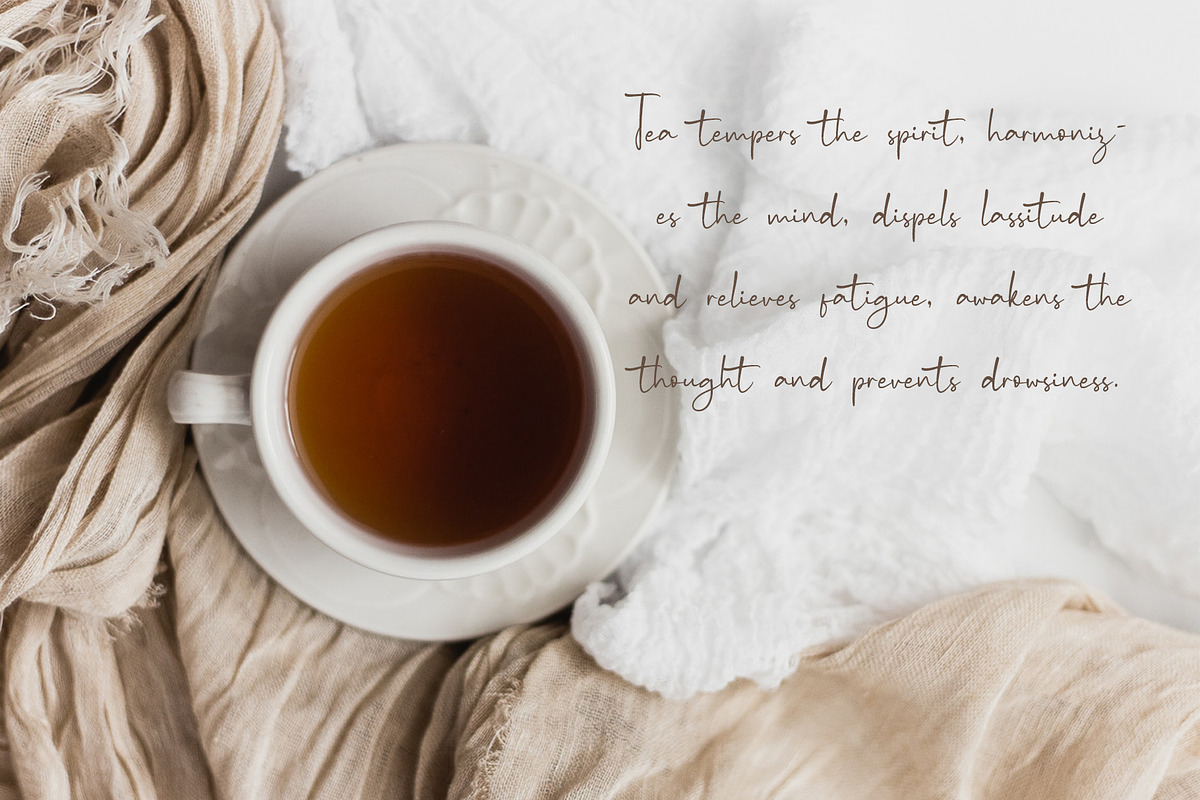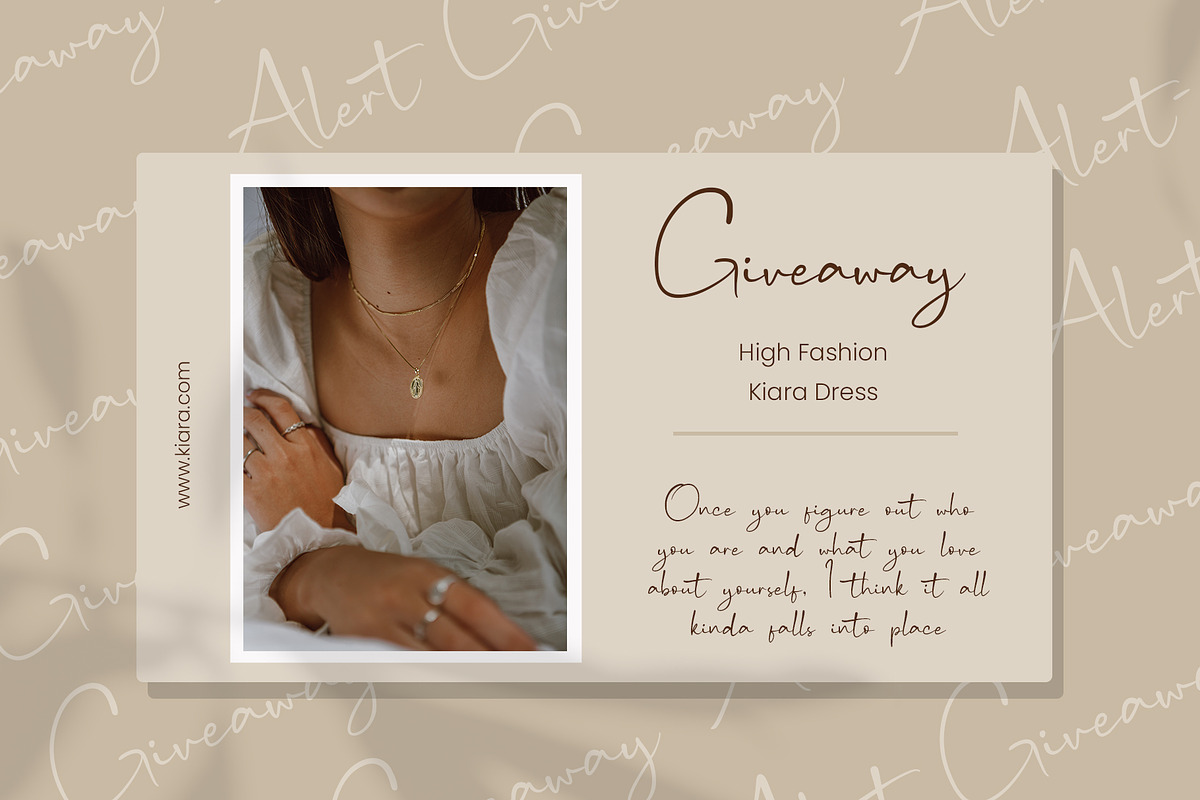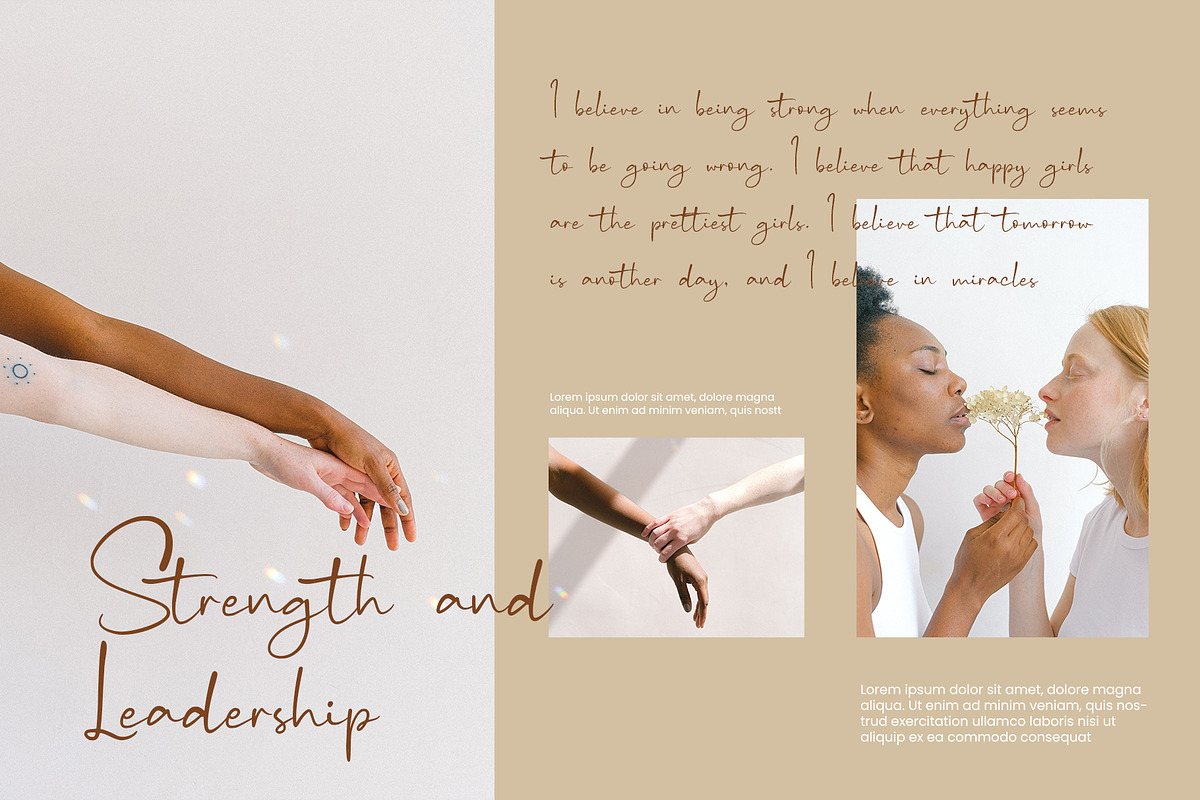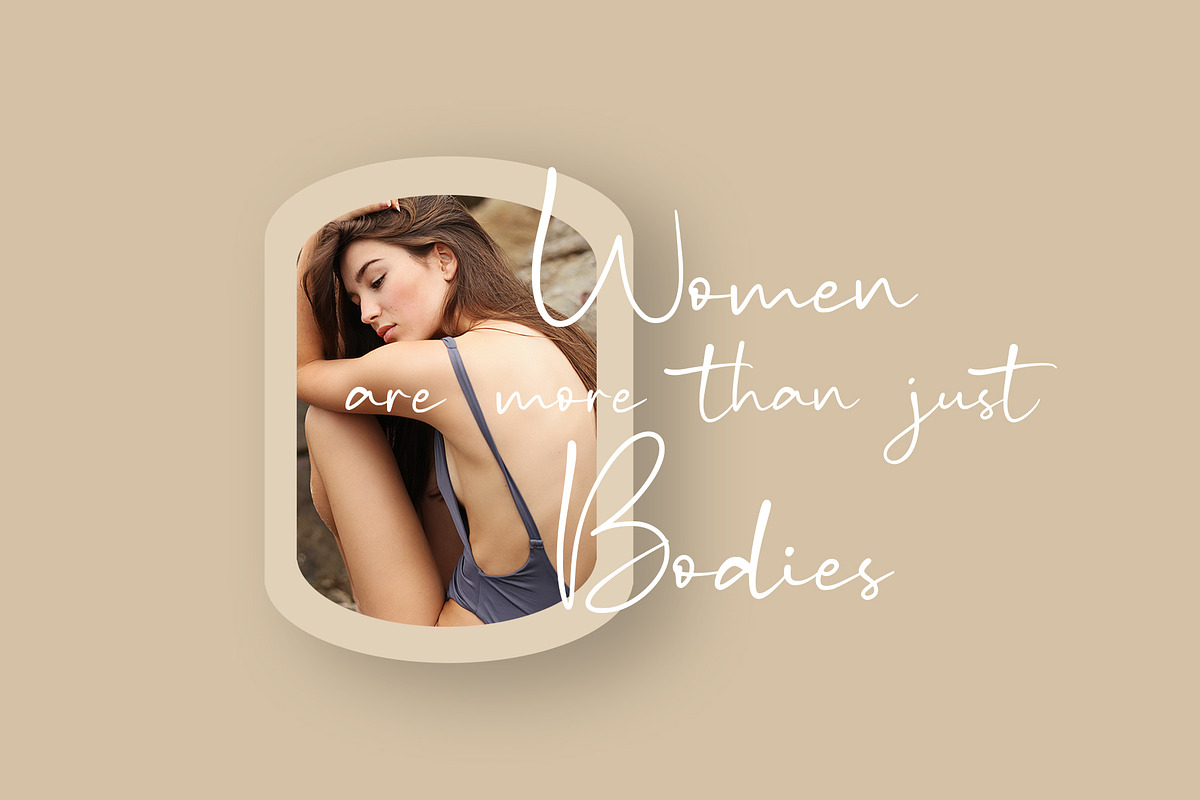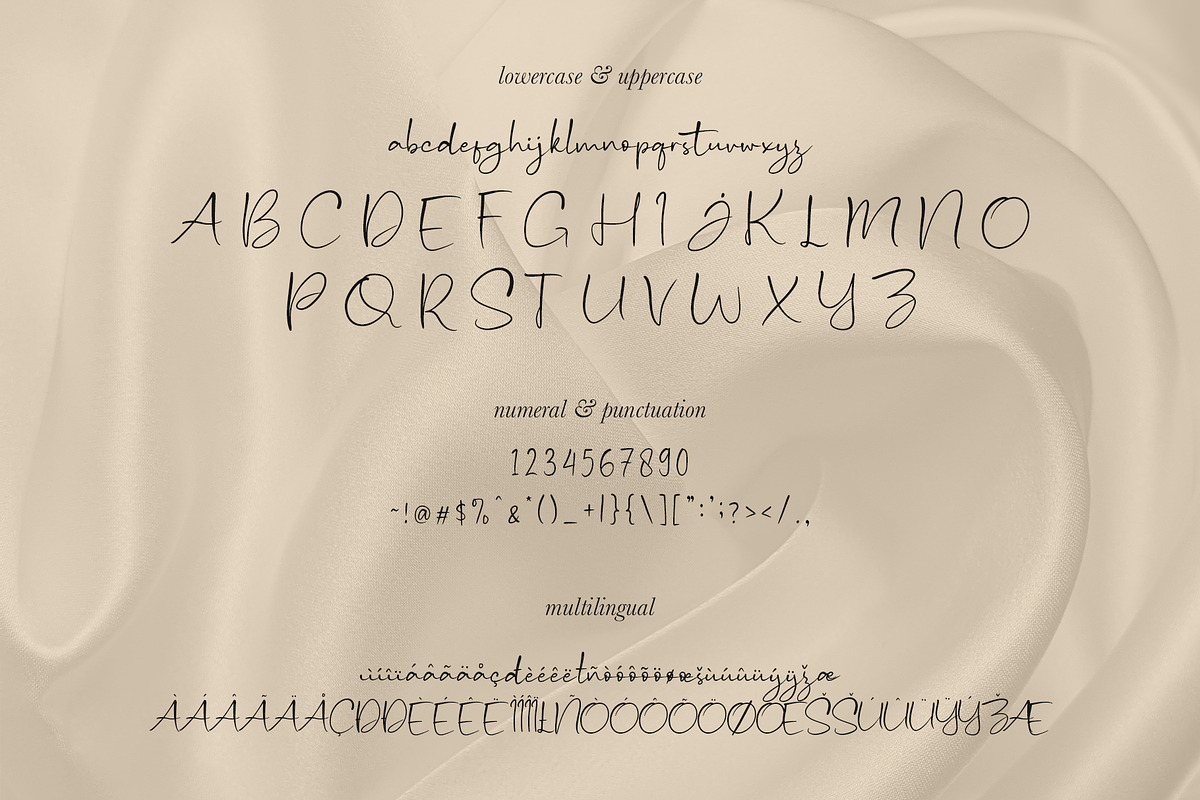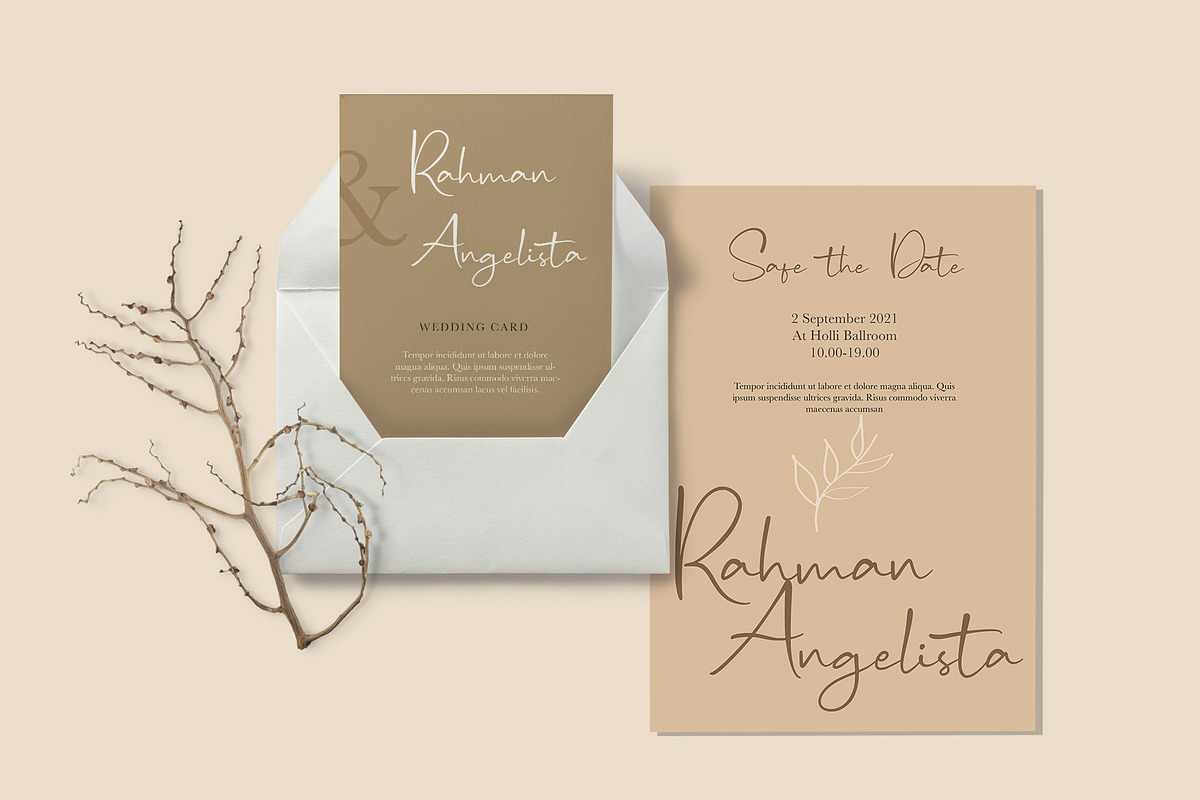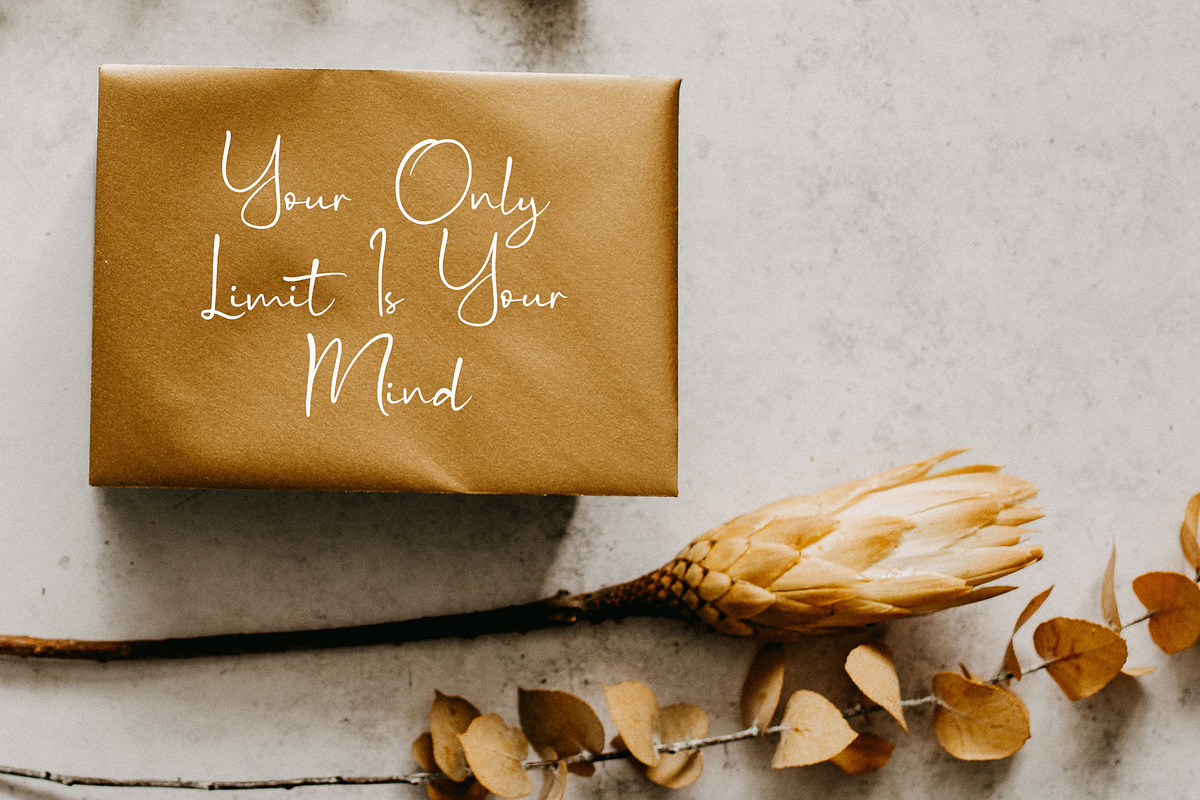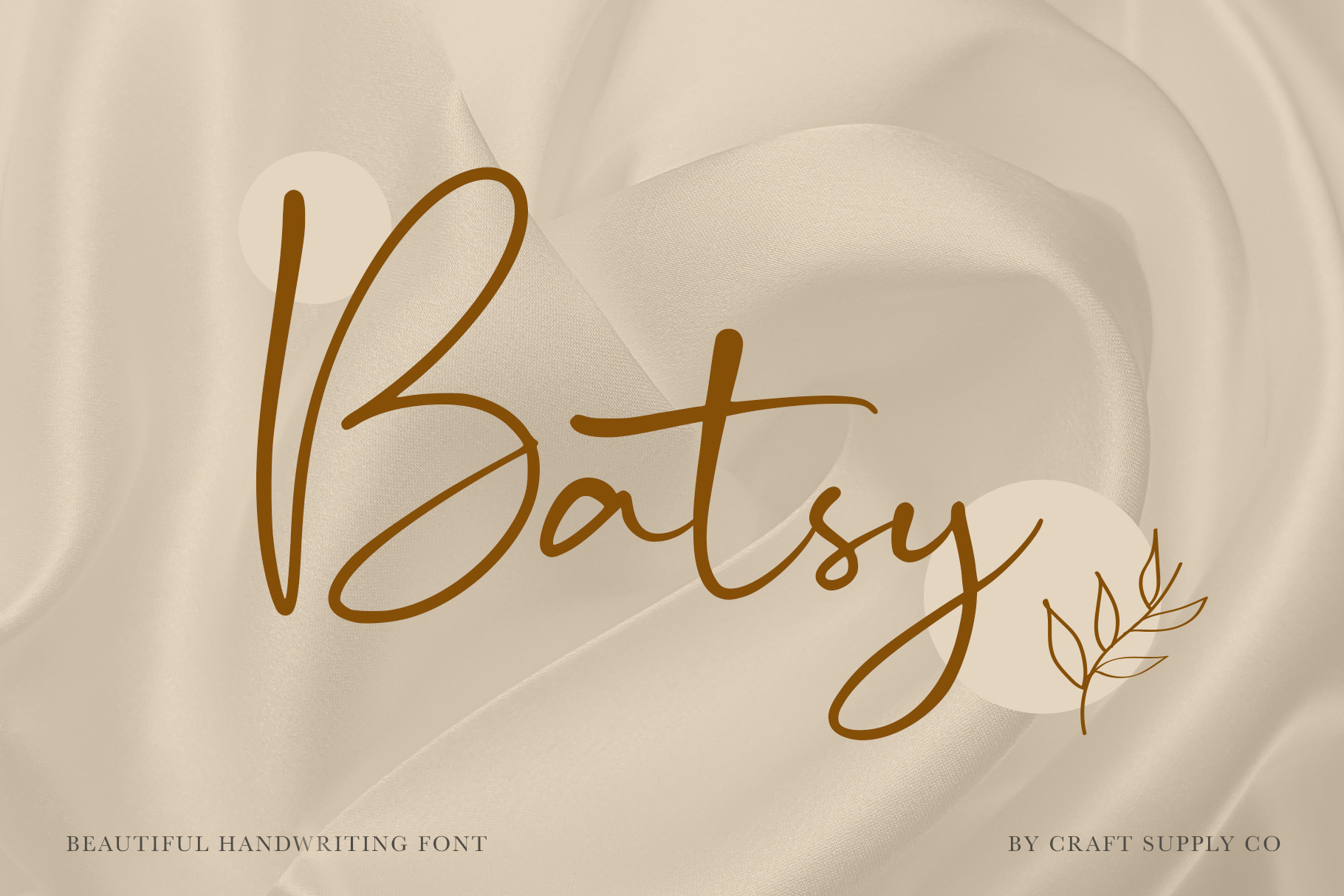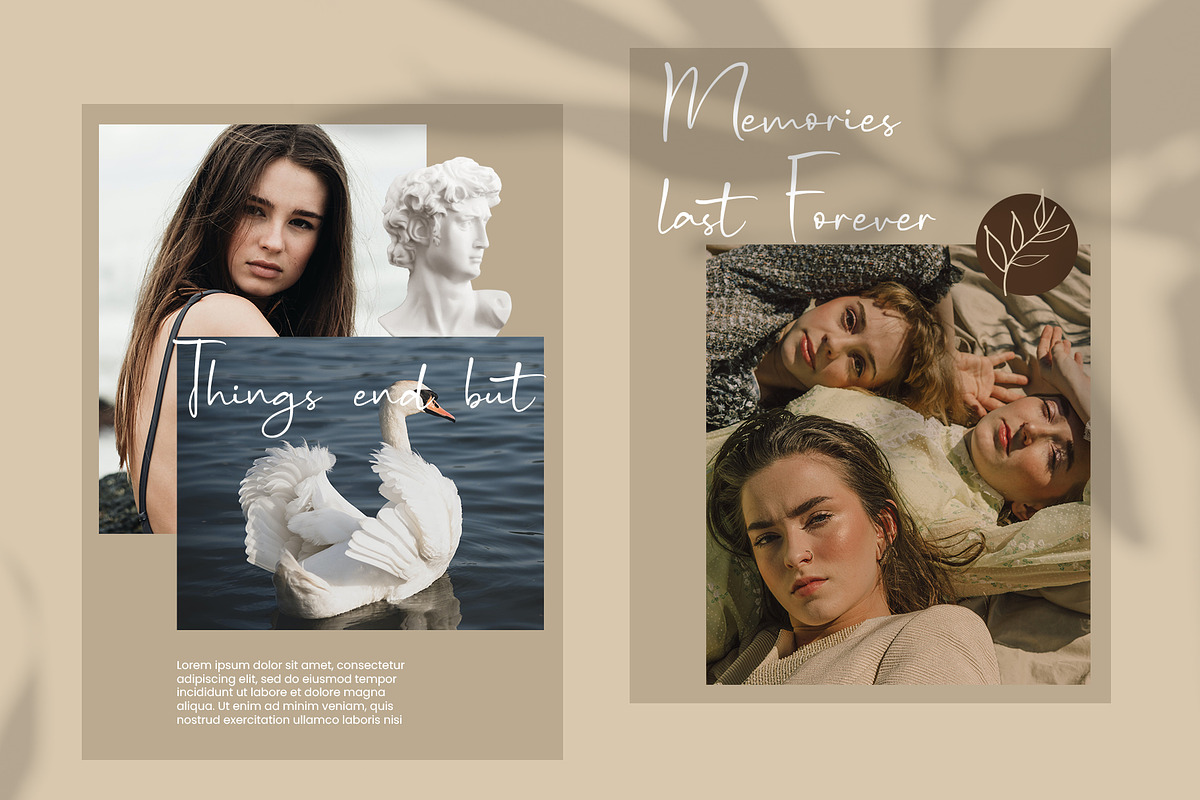
Batsy - Handwriting Font
Batsy - Handwriting Font is a modern handdrawn calligraphy font based on natural hand flow. Batsy - Handwriting Font will work perfectly for fashion, e-commerce brands, trend blogs, wedding boutiques or any business that wants to appear upscale and chic.
Batsy - Handwriting Font also Suitable for Logo, greeting cards, quotes, posters, branding, name card, stationary, design title, blog header, art quote, typography, art, modern envelope lettering or book design, happening style like handdrawn design or watercolor design theme, craft design, any DIY project, book title, or any purpose to make your art/design project look pretty and trendy.
- Accents/Multilingual characters (AÀÁÂÃÄÅCÇDÐEÈÉÊËIÌÍÎÏNÑOØÒÓÔÕÖUÙÜÚÛWYÝŸỲŸÆŒßÞ)